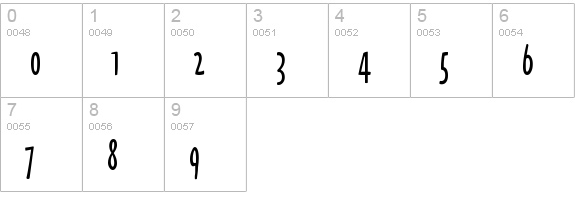
Hobby Condensed Normal is the standard, neutral, condensed-width variant in the Hobby typeface family \xE2\x80\x94 well suited to general body text, paragraphs, and standard typographic work.
Hobby Condensed Normal font is a sleek and modern typeface that exudes sophistication and elegance. Its condensed form gives a unique and stylish look to any design project, making it perfect for headlines, titles, and branding materials. The clean lines and sharp edges of this font make it a versatile choice for a wide range of applications. What sets Hobby Condensed Normal font apart is that it is available for free download at FontsMarket.com. This means that you can easily access and use this high-quality font in your projects without any cost. Whether you're a professional designer looking for a premium font or a hobbyist seeking to elevate your creations, Hobby Condensed Normal font is a fantastic choice that won't break the bank. Download it today and add a touch of sophistication to your designs!